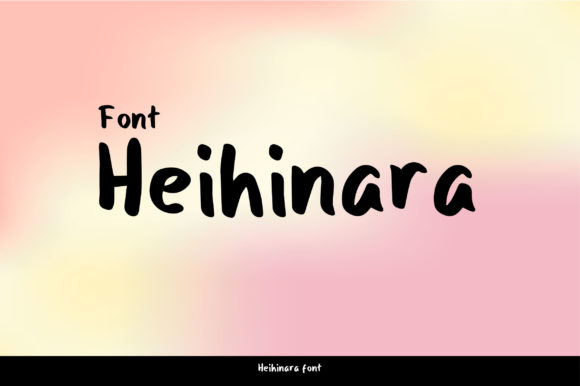
Dive into the world of Heihinara font, a captivating script creation that dances with elegance across your digital designs. Born from the imagination of Ibycreate, this hand-lettered gem exudes a relaxed and friendly charm, making it an instant favorite among discerning designers.
Unlike the cold and impersonal digital fonts, Heihinara is a breath of fresh air, with its organic strokes and lively rhythm. It seamlessly adapts to a wide range of creative projects, from website text and logos to invitations and social media graphics, adding a touch of warmth and personality that speaks volumes.
With its innate ability to elevate any creation, Heihinara is more than just a font; it's an artistic expression that transforms your words into visual masterpieces. Its versatility knows no bounds, captivating audiences with its graceful curves in formal settings and disarming them with its playful charm in casual designs.
Adorned with a bouquet of stylistic alternates and ligatures, Heihinara empowers you to unleash your creativity and craft designs that radiate originality. Each character carries the weight of emotions, inviting viewers to connect with your message on a deeper level.
Don't let your designs be confined by ordinary fonts. Embrace the allure of Heihinara and unlock a world of possibilities. Let its enchanting strokes weave their magic into your projects, leaving an unforgettable impression that resonates with your audience.
Heihinara, the ultimate font for website text, awaits you. Embrace its allure and transform your digital creations into captivating experiences.